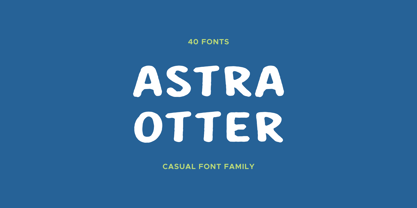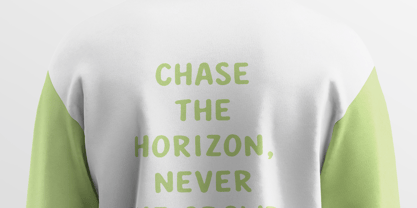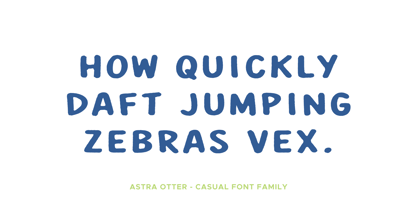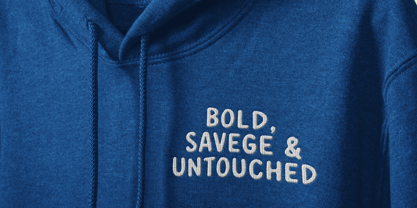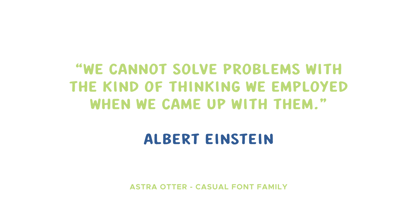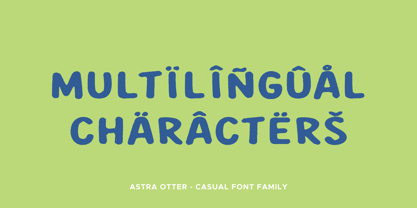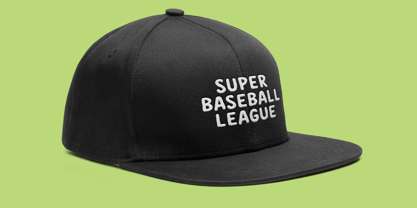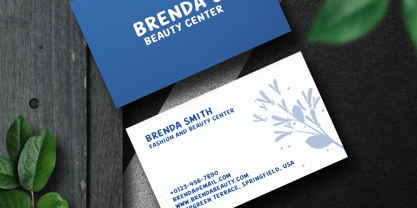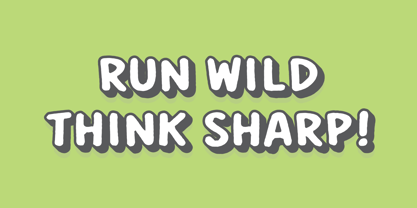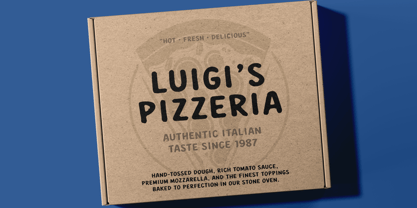
Astra Otter
The Astra Otter Font Family was designed by Mariia Çakıcı and published by OtterType. Astra Otter contains 39 styles and family package options. More about this family
Astra Otter is a bold handwritten display typeface with an eroded, rugged personality designed to make every word feel energetic and expressive. Created by Mariia Cakici, this font blends brush lettering spontaneity with distressed textures, giving designs a raw handcrafted presence. It is ideal for posters, branding, packaging, apparel, music covers, sports graphics, social media visuals, and bold headline work.
With 40 versatile styles, Astra Otter offers regular, italic, outline, brush, cut, grit, ink, rough, rust, scratch, worn, and eroded variations, allowing designers to mix clean and distressed looks within one family. Whether you need a loud urban statement, vintage grunge mood, handcrafted logo style, or edgy promotional typography, Astra Otter provides strong visual impact.
Its 241 glyph character set supports a wide range of Latin-based languages, making it useful for international creative projects. Astra Otter is built for designers who want authentic texture, bold attitude, and flexible style options in one complete font family.